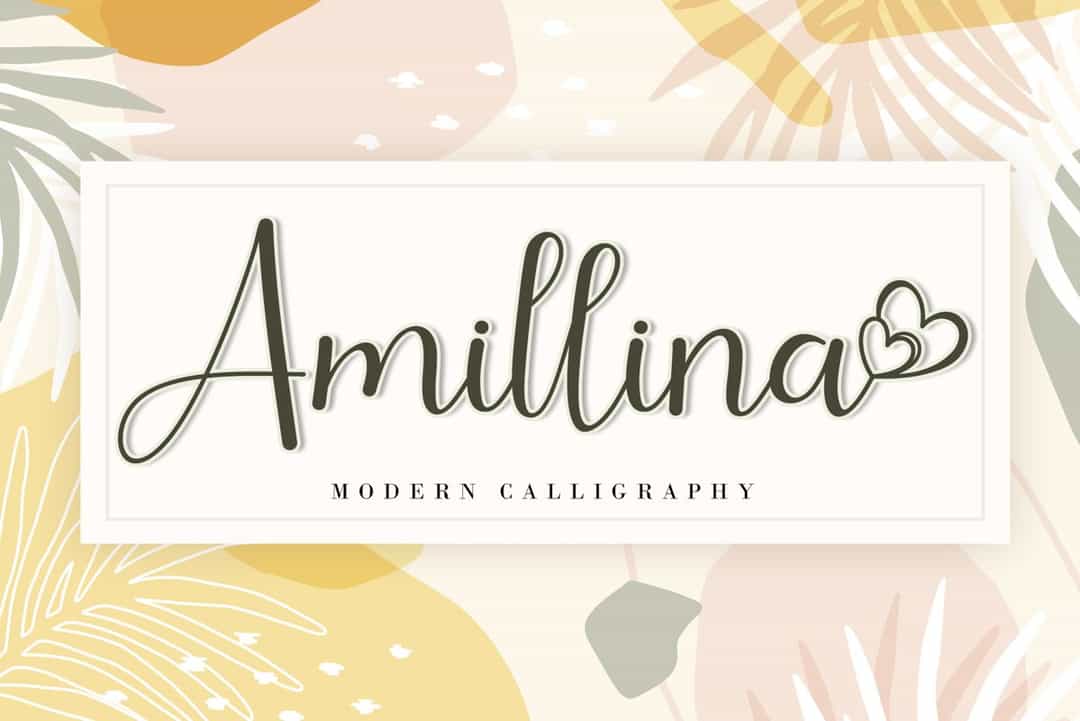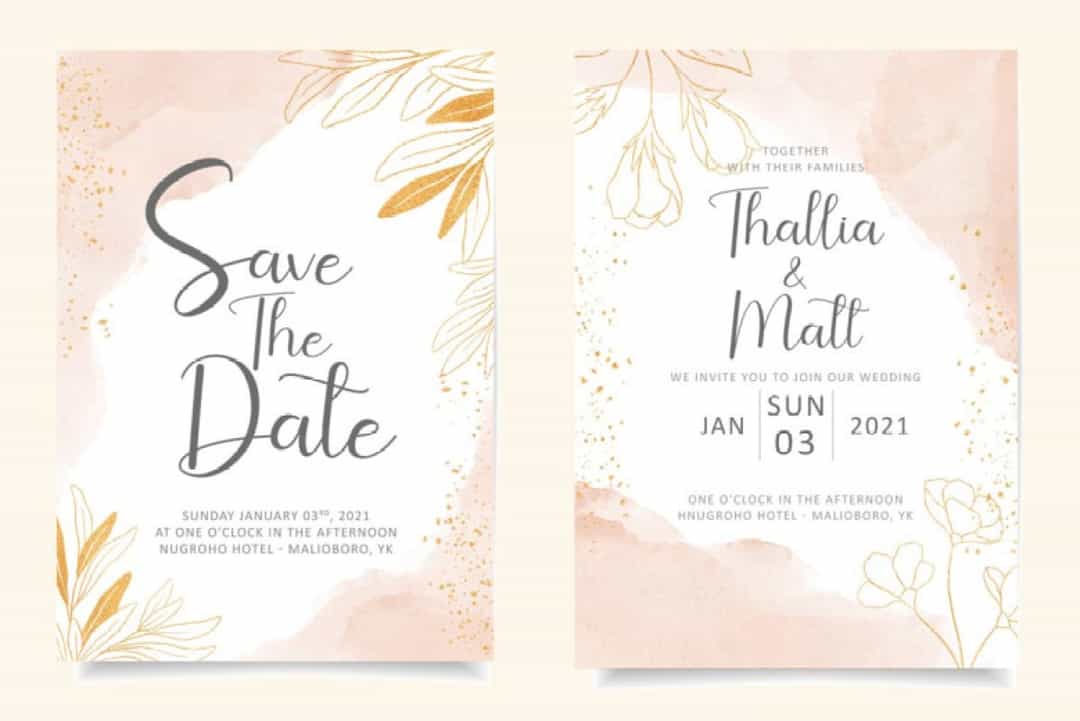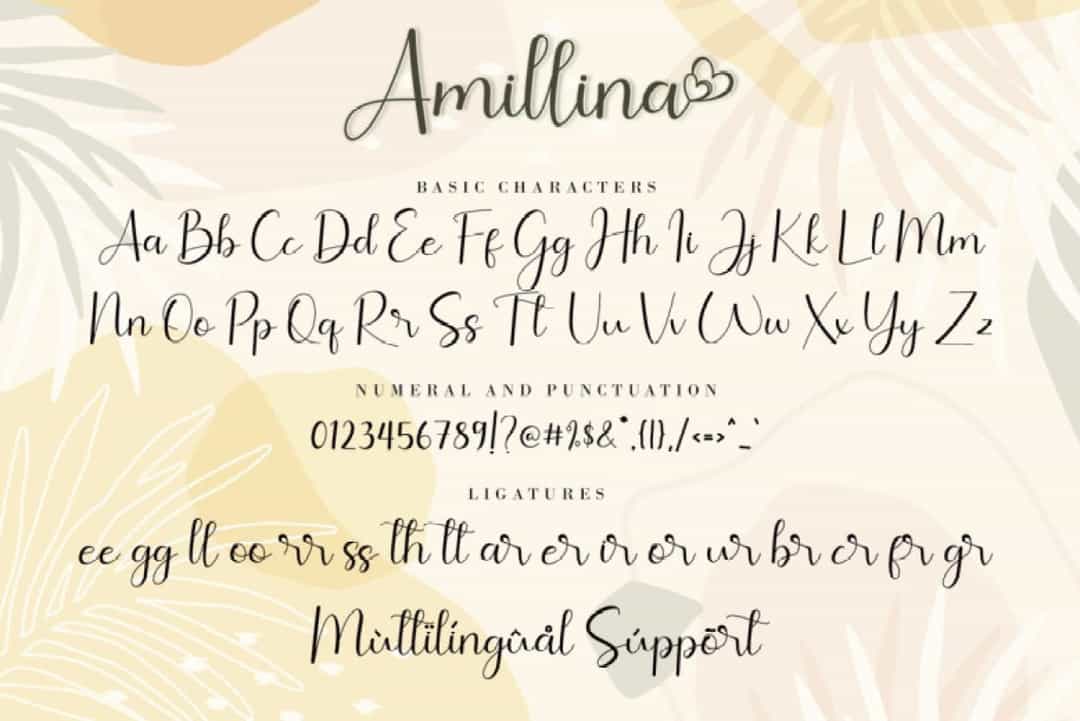
Discover Amillina Calligraphy Script Font, part of the Calligraphy Handwritten Script collection—a versatile and unique font perfect for adding a personal touch to your projects. Download it for free and enjoy crafting designs with style, from invitations to social media posts. This font is available exclusively for personal use, giving you the freedom to create without limits. Unlock your creativity with Amillina Calligraphy Script Font today!
Amillina has a very graceful, tender and smooth handwritten style. Its beautiful characters are compatible with many designs; therefore, Amillina is ideal for generating new concepts. You can use this lovely font in all your most imaginative projects and witness how they turn out!